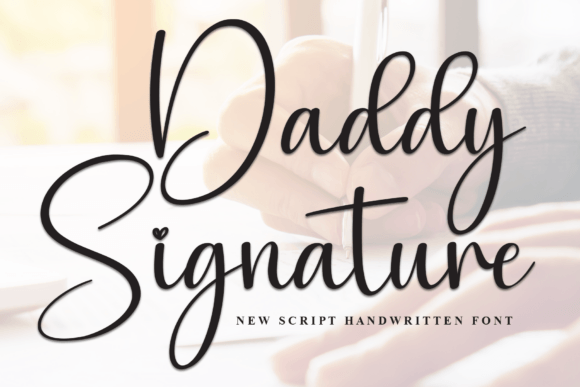
Daddy Signature Font: Elevate Your Designs with Elegance and Sophistication
In the world of typography, fonts play a crucial role in conveying the tone and personality of a design. Among the numerous fonts available, the Daddy Signature Font stands out for its refined and elegant appearance, making it an excellent choice for designers seeking to add a touch of sophistication to their projects. In this article, we will explore the features and benefits of the Daddy Signature Font, and how it can elevate your designs to new heights.
What is Daddy Signature Font?
Daddy Signature is a beautifully crafted handwritten script font that exudes sophistication and charm. Its smooth, flowing strokes and subtle, personal touch make it perfect for a wide range of design applications, including logos, branding, wedding invitations, signatures, and social media graphics. This font is designed to bring a sense of class and individuality to your projects, making it an ideal choice for professional yet artistic designs.
Key Features of Daddy Signature Font
- Elegant and Refined: The Daddy Signature Font boasts an elegant and refined appearance, making it suitable for high-end designs and luxury brands.
- Handwritten Script: The font’s handwritten script style adds a personal touch to your designs, making them more approachable and relatable.
- Smooth and Flowing Strokes: The font’s smooth and flowing strokes create a sense of continuity and harmony, making it perfect for designs that require a sense of movement and fluidity.
- Subtle and Sophisticated: The Daddy Signature Font strikes the perfect balance between subtlety and sophistication, making it an excellent choice for designs that require a touch of elegance.
Use Cases for Daddy Signature Font
The Daddy Signature Font is versatile and can be used in various design applications, including:
- Logos and Branding: The font’s elegant and refined appearance makes it perfect for logos and branding materials, helping to establish a strong and sophisticated brand identity.
- Wedding Invitations: The font’s handwritten script style and subtle, personal touch make it an excellent choice for wedding invitations, adding a touch of romance and elegance to your designs.
- Signatures: The Daddy Signature Font is ideal for creating custom signatures, adding a touch of sophistication and personality to your designs.
- Social Media Graphics: The font’s smooth and flowing strokes make it perfect for social media graphics, helping to create engaging and visually appealing content.
Benefits of Using Daddy Signature Font
The Daddy Signature Font offers numerous benefits, including:
- Unique and Memorable: The font’s elegant and refined appearance makes it unique and memorable, helping to establish a strong brand identity.
- Versatile: The font’s versatility makes it suitable for various design applications, from logos and branding to wedding invitations and social media graphics.
- Elegant and Sophisticated: The font’s elegant and sophisticated appearance adds a touch of luxury and refinement to your designs, making them more engaging and visually appealing.
- Easy to Read: The font’s smooth and flowing strokes make it easy to read, even at small sizes.
Tips for Using Daddy Signature Font
To get the most out of the Daddy Signature Font, follow these tips:
- Use it Sparingly: Use the font sparingly to add emphasis and create visual interest, rather than overwhelming your design with too much text.
- Pair it with Other Fonts: Pair the Daddy Signature Font with other fonts to create a unique and visually appealing typography combination.
- Experiment with Colors: Experiment with different colors to find the perfect combination that complements your design and enhances the font’s elegance.
- Pay Attention to Kerning: Pay attention to kerning to ensure that the font is properly spaced and visually appealing.
| Font Name | Daddy Signature Font |
The Daddy Signature Font is a refined and elegant handwritten script font that exudes sophistication and charm. Its smooth, flowing strokes and subtle, personal touch make it perfect for a wide range of design applications, from logos and branding to wedding invitations and social media graphics. With its versatility, elegance, and sophistication, the Daddy Signature Font is an excellent choice for designers seeking to add a touch of luxury and refinement to their projects.
- What is the Daddy Signature Font? The Daddy Signature Font is a refined and elegant handwritten script font, exuding sophistication and charm.
- What is the font suitable for? The font is suitable for logos, branding, wedding invitations, signatures, social media graphics, and other design applications.
- Is the font easy to read? Yes, the font is easy to read, even at small sizes, thanks to its smooth and flowing strokes.